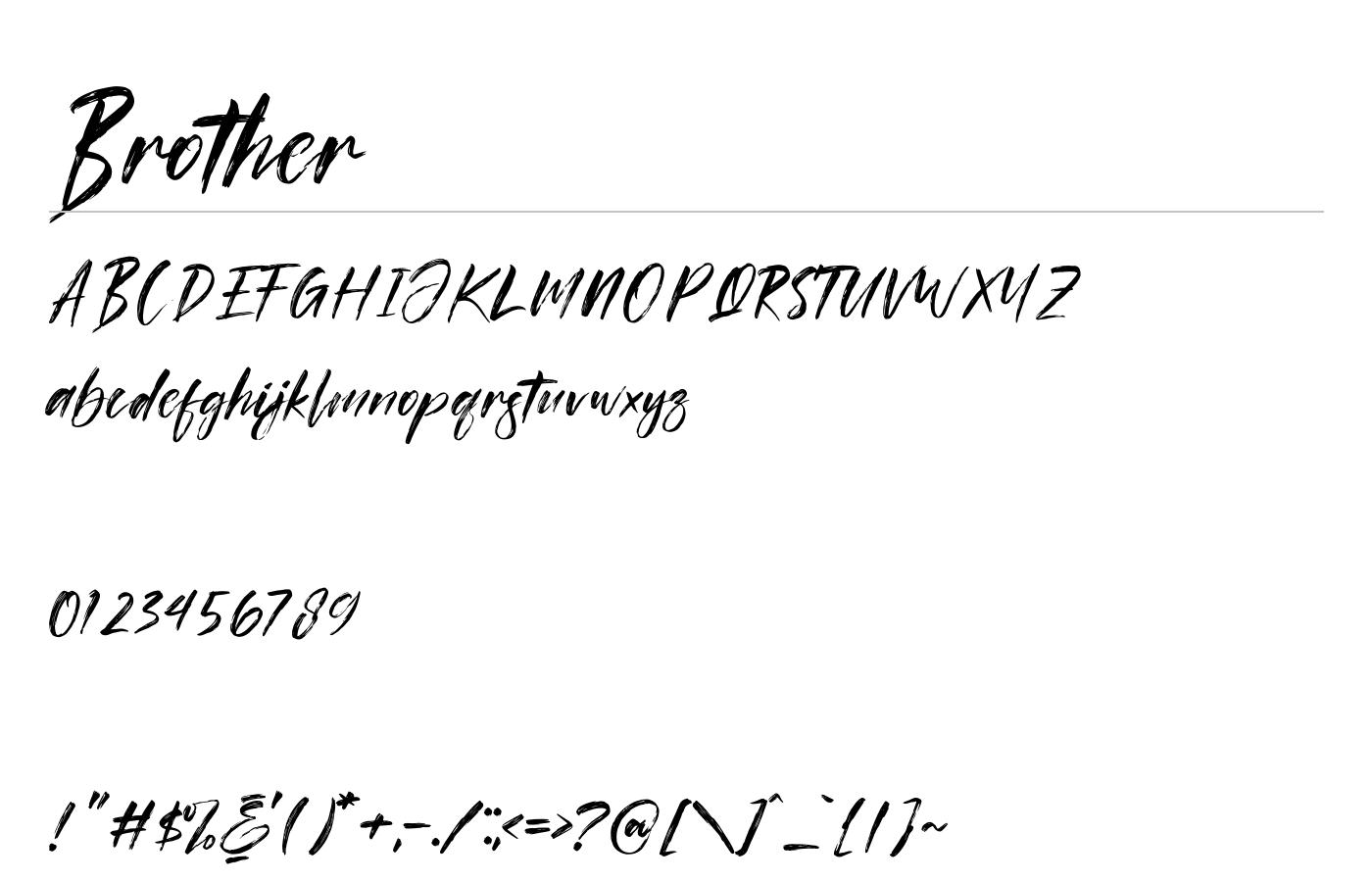
Brother Font is a dynamic, brush-style script with a casual and expressive feel, featuring irregular strokes and a hand-painted texture. Its tall, narrow letterforms and lively flow make it perfect for creative projects, branding, and headlines that need a personal, energetic touch. This font works well where a bold, artistic vibe is desired, adding personality and a modern handcrafted look.
Brother Font
About Brother Font